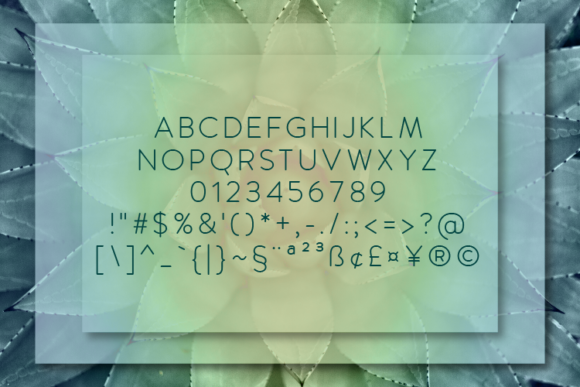
Introduction to Manolo Regular Font
Have you ever stared at a blank canvas, struggling to find the perfect font to bring your creative project to life? You’ve spent hours browsing through design resources, searching for that one font that will elevate your design and make it stand out from the crowd. And then, it happens – you stumble upon the perfect font, one that exudes elegance and sophistication. For designers, finding the right font can be a game-changer, and today, we’re excited to introduce you to the Manolo Regular Font.
This simple yet stylish sans serif font is a valuable addition to any designer’s toolkit, perfect for branding, websites, photos, titles, and quotes. With its transparent background and high-quality design, the Manolo Regular Font is a must-have for any creative project.
Key Features of Manolo Regular Font
- High-quality design resource ideal for creative projects, offering a professional and sleek look.
- Comes with a transparent background, allowing for easy integration into various design elements.
- Features a clear and legible font style, making it suitable for body text and headings in a wide range of applications.
- Includes a comprehensive character set, covering a wide range of languages and special characters.
Honest Review: Manolo Regular Font
As a designer, I’m always on the lookout for high-quality design resources that can elevate my creative projects. Recently, I stumbled upon the Manolo Regular Font, and I’m excited to share my thoughts on it.
What works well: ✨ The Manolo Regular Font has a sleek and modern aesthetic that’s perfect for contemporary designs. It’s also incredibly versatile, making it suitable for a wide range of creative projects, from digital products to print materials. The font is also available for free download, which is a major plus for designers on a budget.
What doesn’t work well: ⚠️ One of the limitations of the Manolo Regular Font is that it doesn’t have a transparent background option. While this isn’t a deal-breaker, it can be a problem when working with complex backgrounds or layered designs.
Here are some of the key features of the Manolo Regular Font:
- High-quality design suitable for contemporary projects
- Modern aesthetic with a versatile feel
Overall, I’m impressed with the Manolo Regular Font. While it may not have all the bells and whistles, its high quality and versatility make it a valuable addition to any designer’s toolkit.
Tips for Getting the Most Out of Manolo Regular Font
Use the Manolo Regular Font on a transparent background to create a modern and sleek design. Experiment with different font sizes and colors to add depth and visual interest to your project. The font’s high-quality design makes it perfect for use in a variety of creative projects.
The Manolo Regular Font is perfect for use in a variety of creative projects, including:
– Graphic design projects
– Digital marketing campaigns
– Print materials, such as business cards and brochures
– Website design and development projects